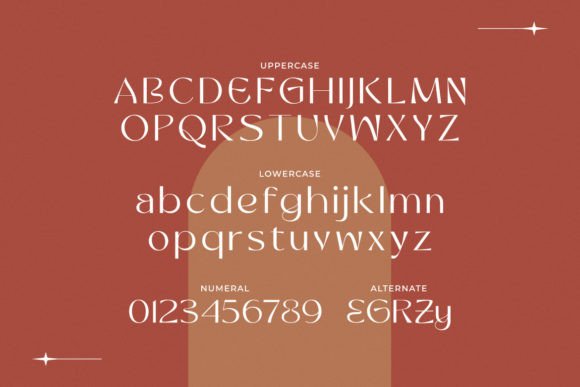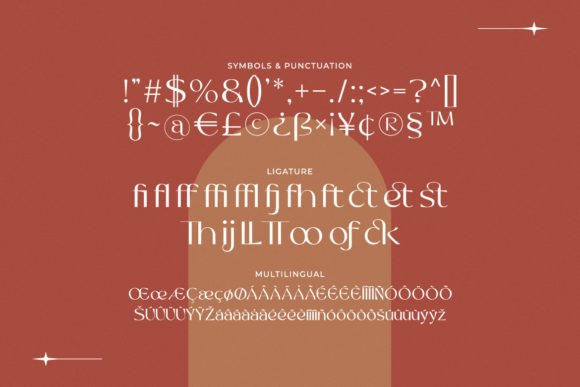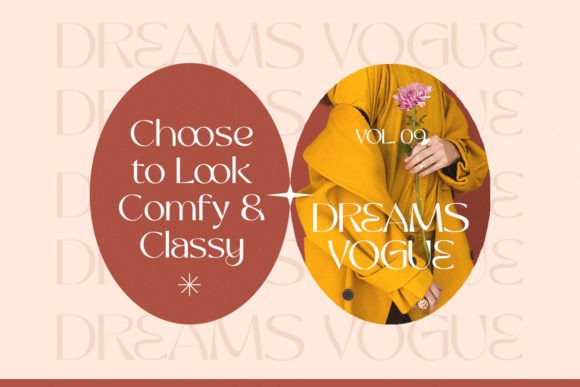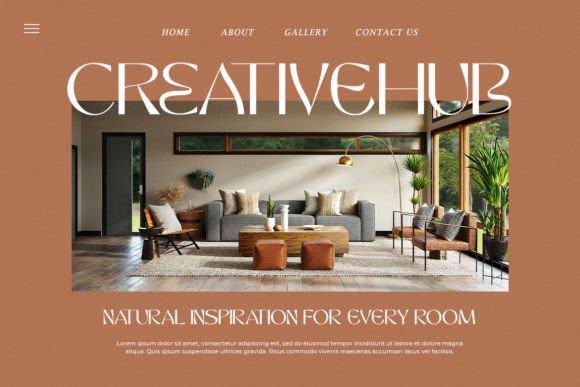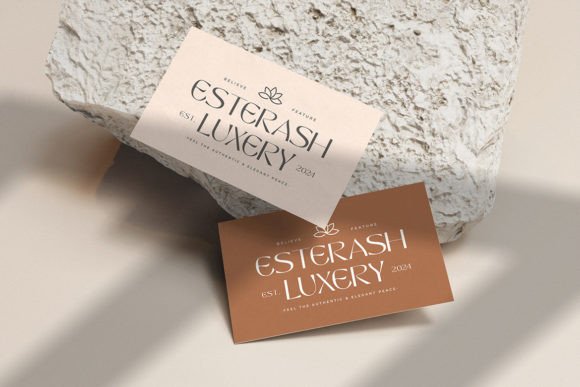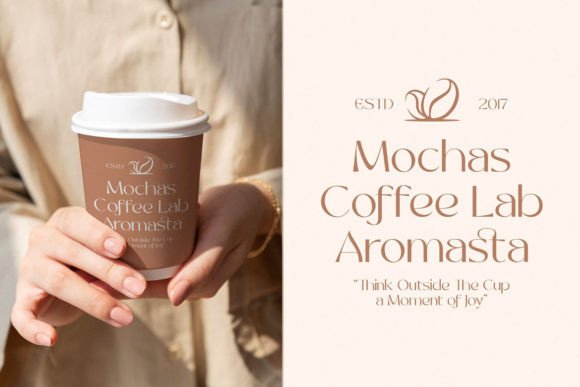
Getting Inspired with the Bowens Font
Remember the moment when you stumble upon an old vinyl record or a vintage poster, and suddenly you’re transported back to a bygone era? The colors, the typography, the overall aesthetic – everything comes together to evoke a sense of nostalgia and creativity. As a designer, you know that capturing this essence in your work can be a challenge, but with the right tools, it’s achievable. That’s where the Bowens Font comes in – a liquid retro typeface that will take your creative projects to the next level.
With its unique design and smooth, fluid style, the Bowens Font is perfect for designers who want to add a touch of retro charm to their work. Whether you’re creating a poster, branding, packaging, or logos, this versatile font is a valuable addition to your design resource. And the best part? It’s available for free download, making it an accessible and high-quality design tool for designers of all levels.
Key Features of Bowens Font
- High-quality font design ideal for creative projects requiring a sophisticated touch.
- Transparent background allows for seamless integration with images and graphics, enhancing overall visual impact.
- Designed to be scalable, maintaining crisp clarity at resolutions up to 300 DPI, making it suitable for print and digital applications.
- Unique characteristics include elegant script and modern sans-serif elements, adding a touch of sophistication to any design.
Honest Review: Bowens Font
As a designer, I’m always on the lookout for high-quality design resources to elevate my creative projects. Recently, I had the chance to work with the Bowens Font, and I’m excited to share my thoughts.
- ✨ The Bowens Font is incredibly versatile and can be used for a wide range of creative projects, from logos to brochures.
- ✨ The font’s clean and modern design makes it perfect for those looking for a high-quality, professional look.
- ✨ One of the standout features of the Bowens Font is its transparent background, making it easy to layer and manipulate in design software.
- ⚠️ While the Bowens Font is highly versatile, it may not be the best choice for projects requiring a more exotic or stylized font.
- ⚠️ Additionally, the font’s design may not be suitable for very small text sizes, as it can become difficult to read.
Overall, I’m thoroughly impressed with the Bowens Font. Its high-quality design, transparent background, and free download make it an excellent resource for designers. While it may have some limitations, I believe it’s an essential addition to any design toolkit.
Bowens Font
Tips for Getting the Most Out of Bowens Font
Here are a few tips to help you get the most out of Bowens Font:
- Experiment with different font sizes and styles to find the perfect combination for your design.
- Use Bowens Font in conjunction with other design elements, such as images and graphics, to create a visually appealing design.
- Take advantage of the font’s versatility by using it in a variety of creative projects, from logos to social media graphics.
Bowens Font is a popular choice for a variety of design projects, including:
- Infographics and data visualizations